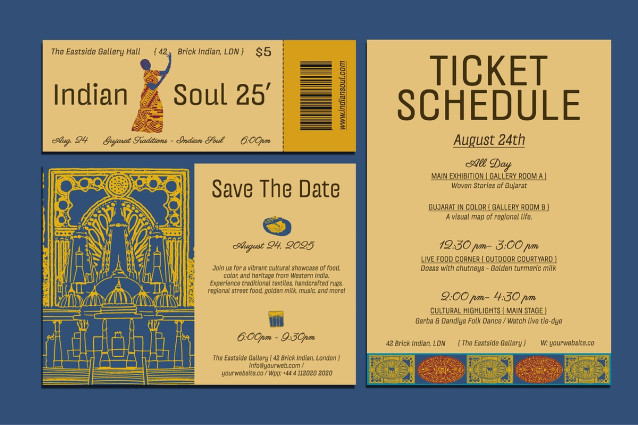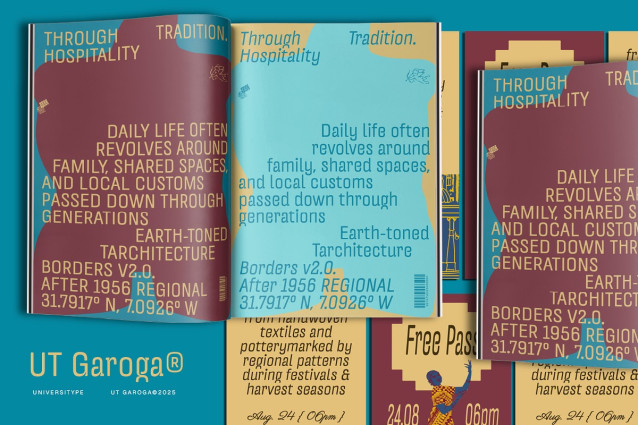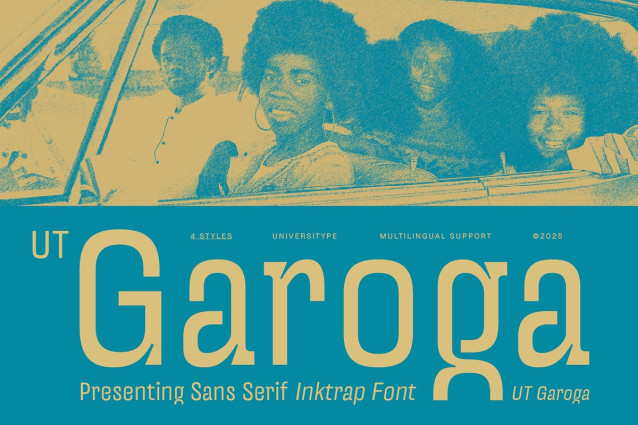
UT Garoga Font
UT Garoga Font is a retro-leaning ink-trap sans serif designed to bring warmth, personality, and structure into one visual voice. Its rounded construction, expressive ink traps, and soft terminals create a friendly rhythm, while the engineered shapes keep everything feeling sharp and intentional. Garoga works beautifully in bold compositions, letting its quirky details shine without losing clarity.
With four flexible styles, this typeface adapts easily—from clean and crisp layouts to softer, rounded expressions—making it a solid choice for modern branding with a nostalgic twist.